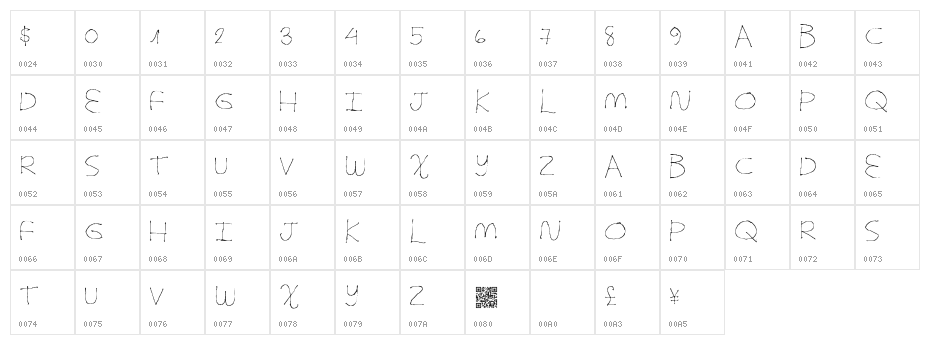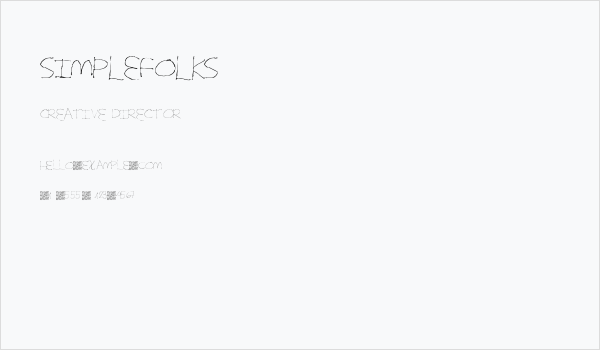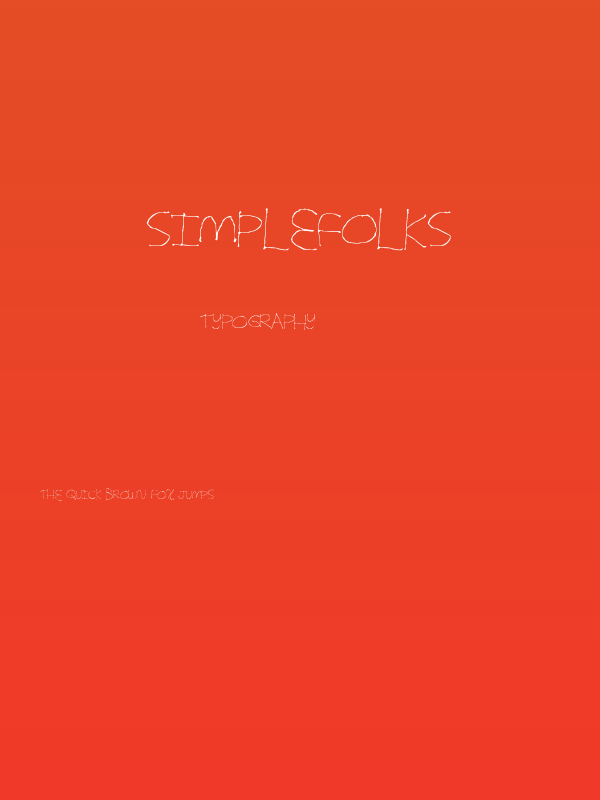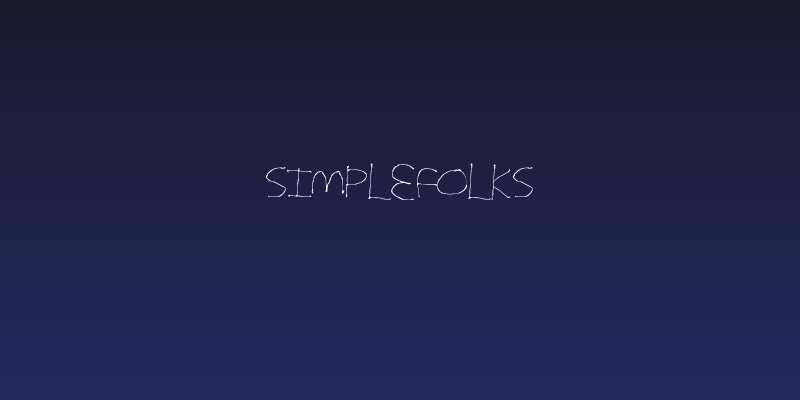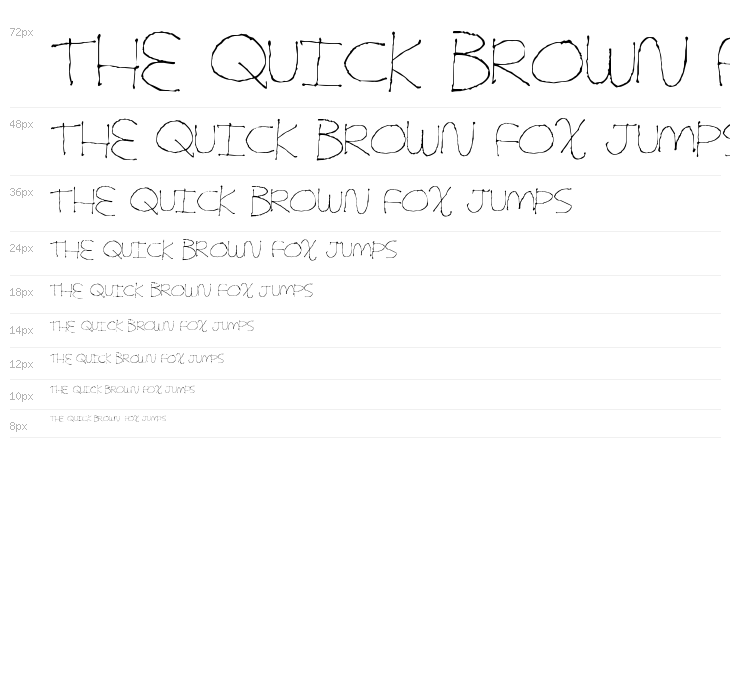
SimpleFolks Font
SimpleFolks Description
This font features a playful and whimsical handwritten style, characterized by irregular strokes and a casual appearance. The letters are uneven, with varying heights and widths, giving it a unique and informal look. The strokes are thin and slightly wobbly, adding to the hand-drawn effect. This font is suitable for projects that require a personal touch or a creative flair. It includes both uppercase and lowercase letters, numbers, and a selection of special characters, making it versatile for various design needs.
| Overall Style | Casual, Playful |
| Use Case | Headlines, Informal text, Creative projects |
| Proposed Projects | Ideal for children's books, greeting cards, creative posters, and personal branding. |